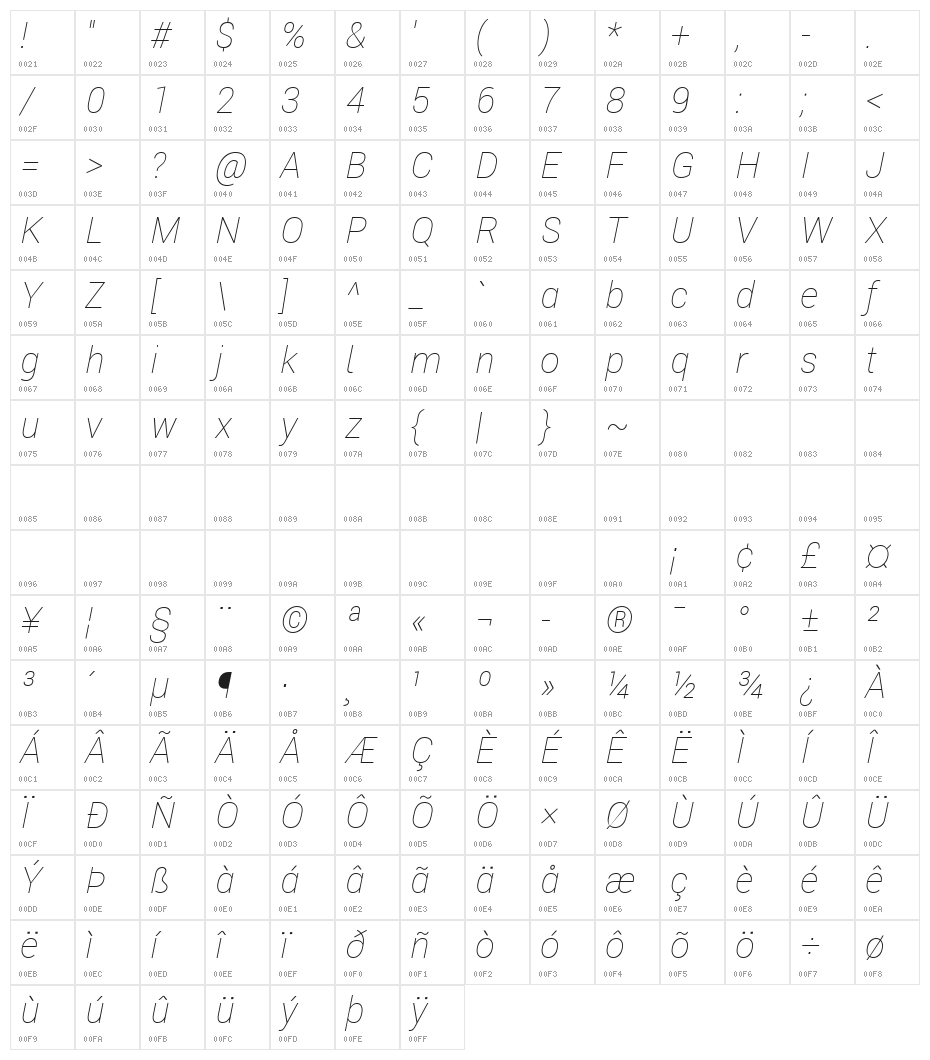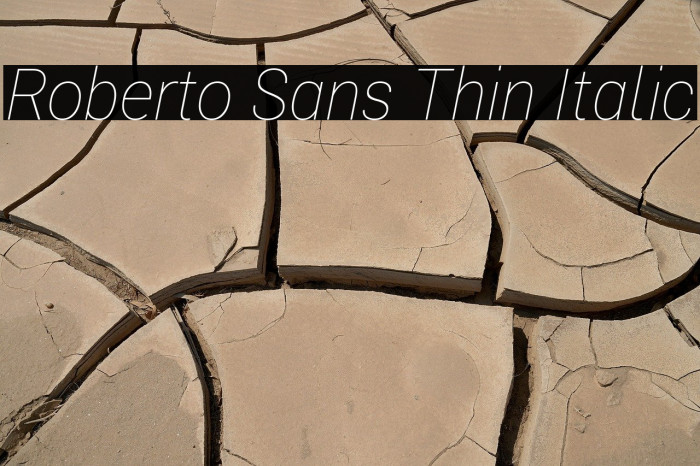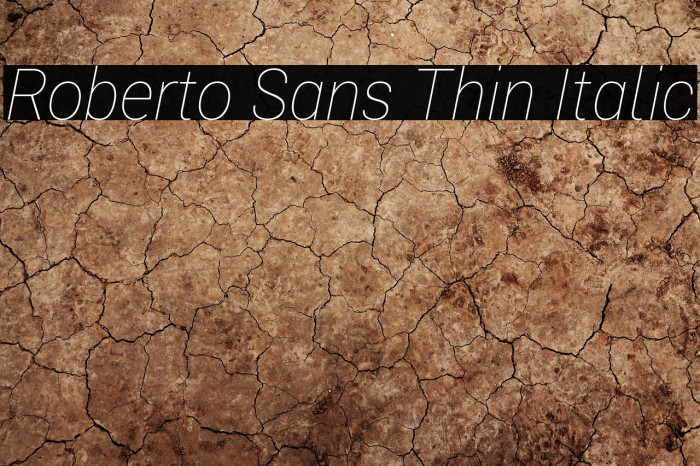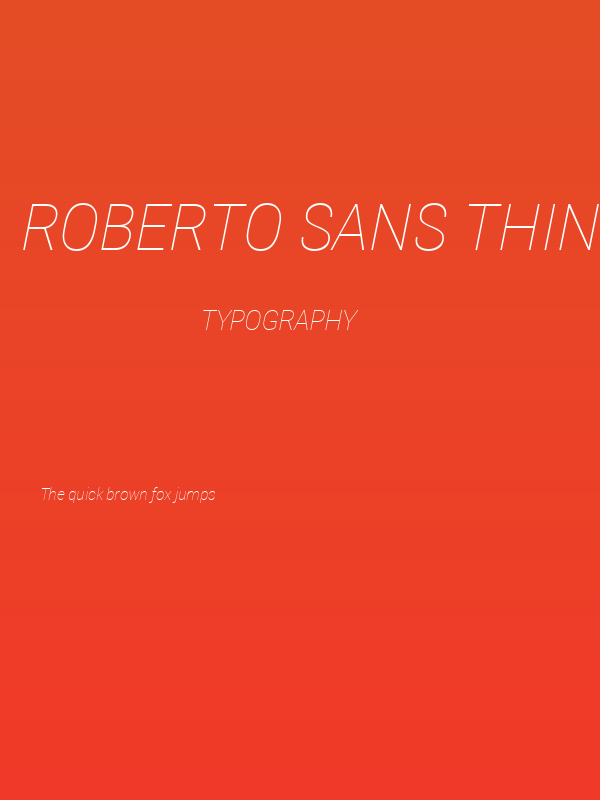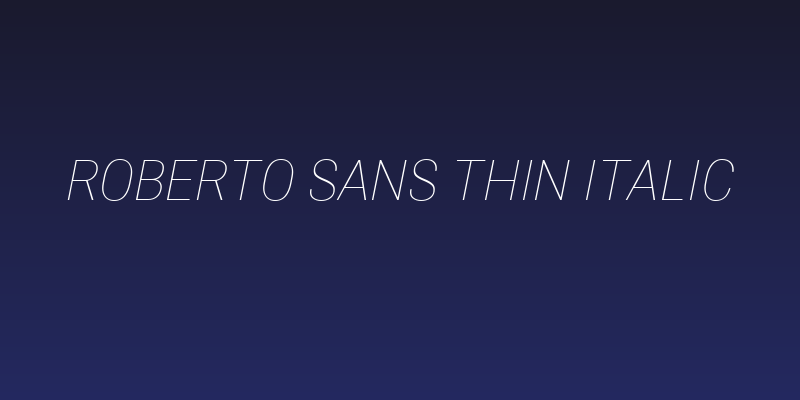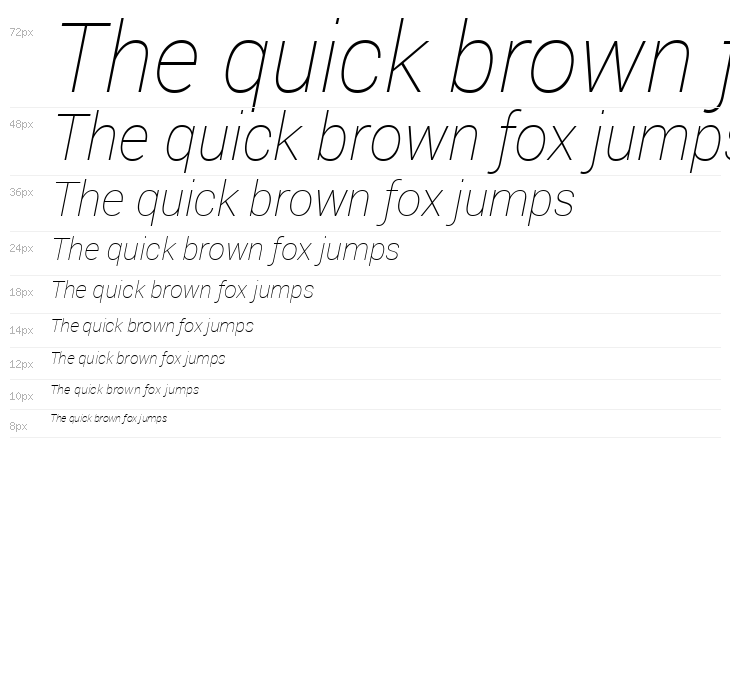
Roberto Sans Thin Italic Font
Roberto Sans Thin Italic Description
This font features a sleek and modern design characterized by its thin and elegant lines. The italic style adds a subtle slant to the characters, enhancing its contemporary appeal. Each letter is crafted with precision, maintaining a consistent stroke width throughout. The uppercase and lowercase letters are well-proportioned, and the numerals are clear and easy to read. Special characters are included, providing versatility for various design needs. The overall aesthetic is clean and minimalist, making it suitable for a wide range of applications.
| Proposed Projects | Ideal for modern branding projects, minimalist website designs, elegant invitations, and stylish editorial layouts. |